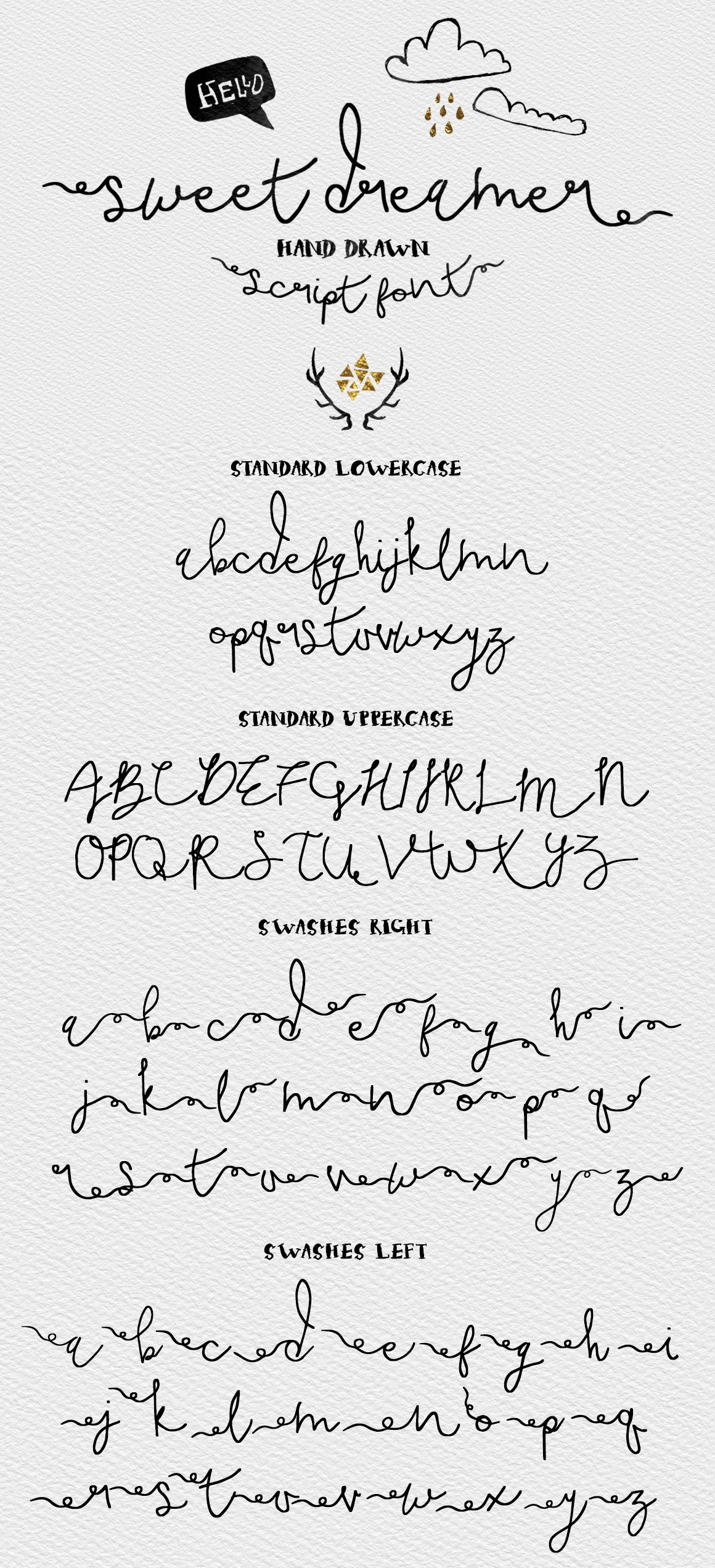
Sweet Dreamer Script Typeface -20%
Sweet Dreamer is an imperfect script font that has a separate font file for the letters with swashes, for easy for those who dont have a glyphs panel. Use Uppercase for left swashes, lowercase for right swashes. Please install both font files.
All numbers and symbols included